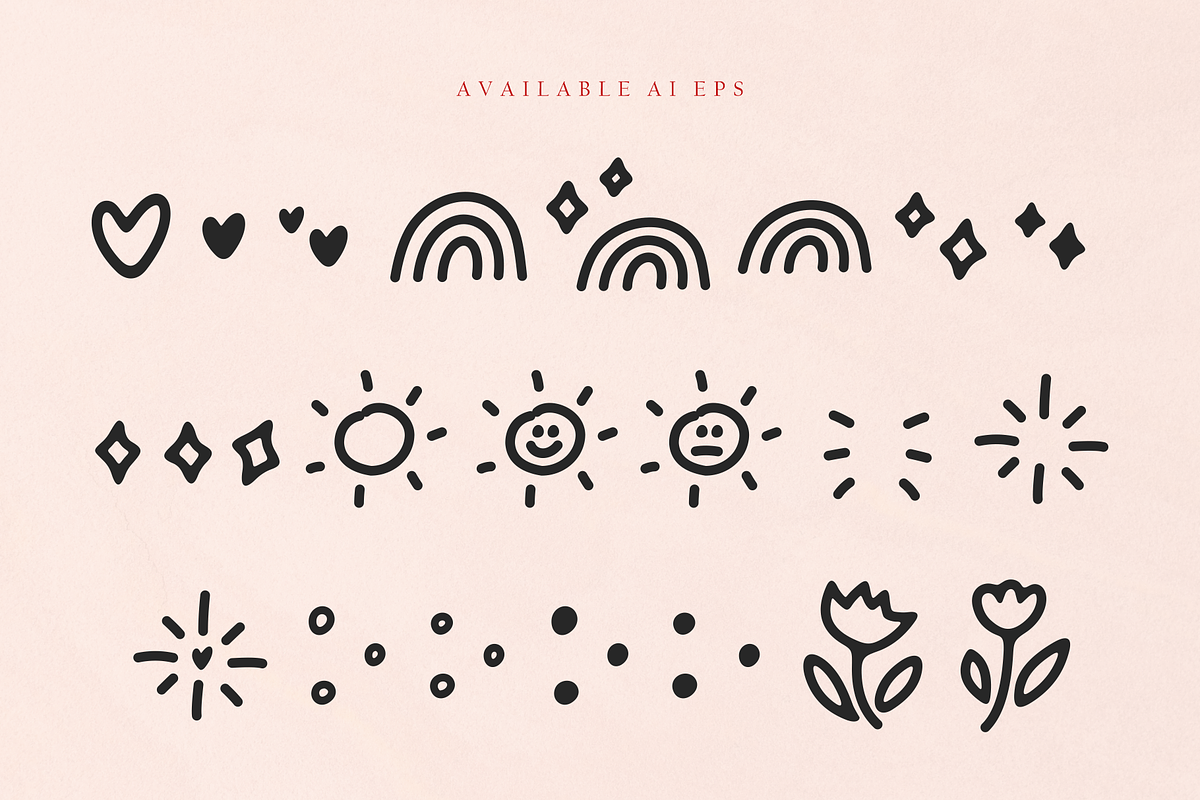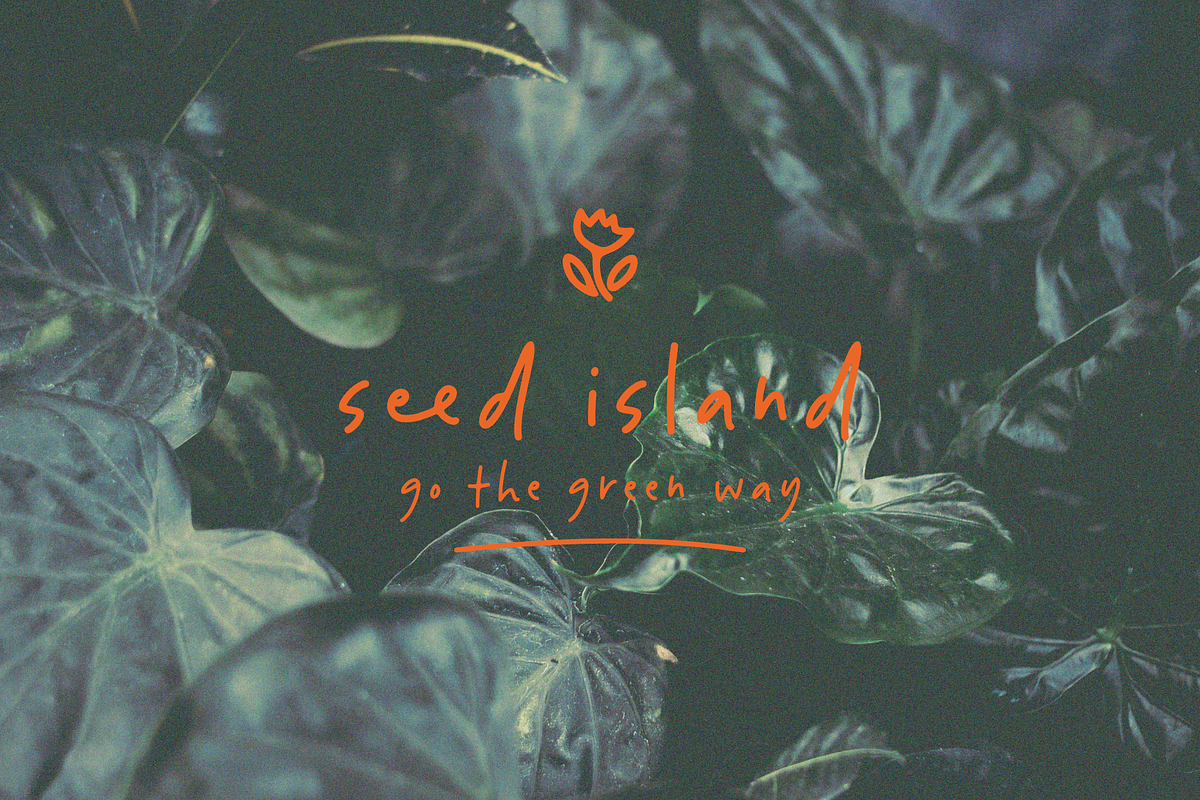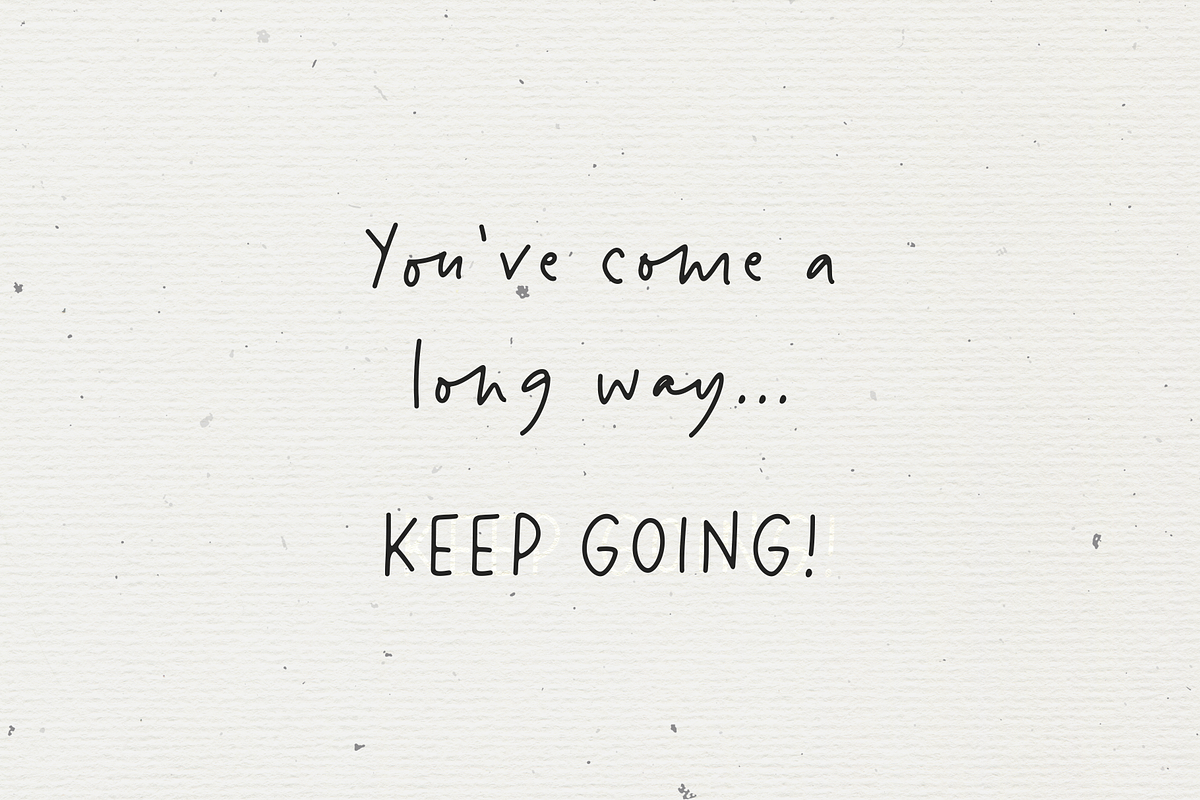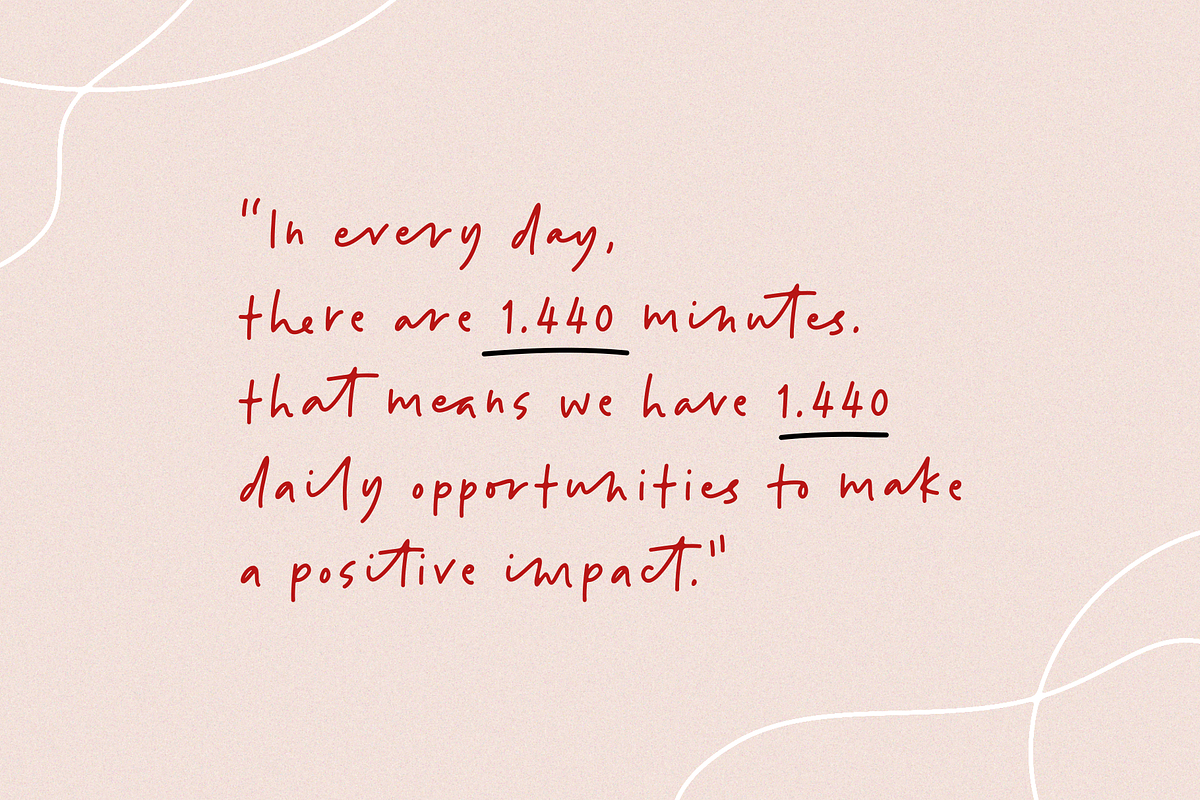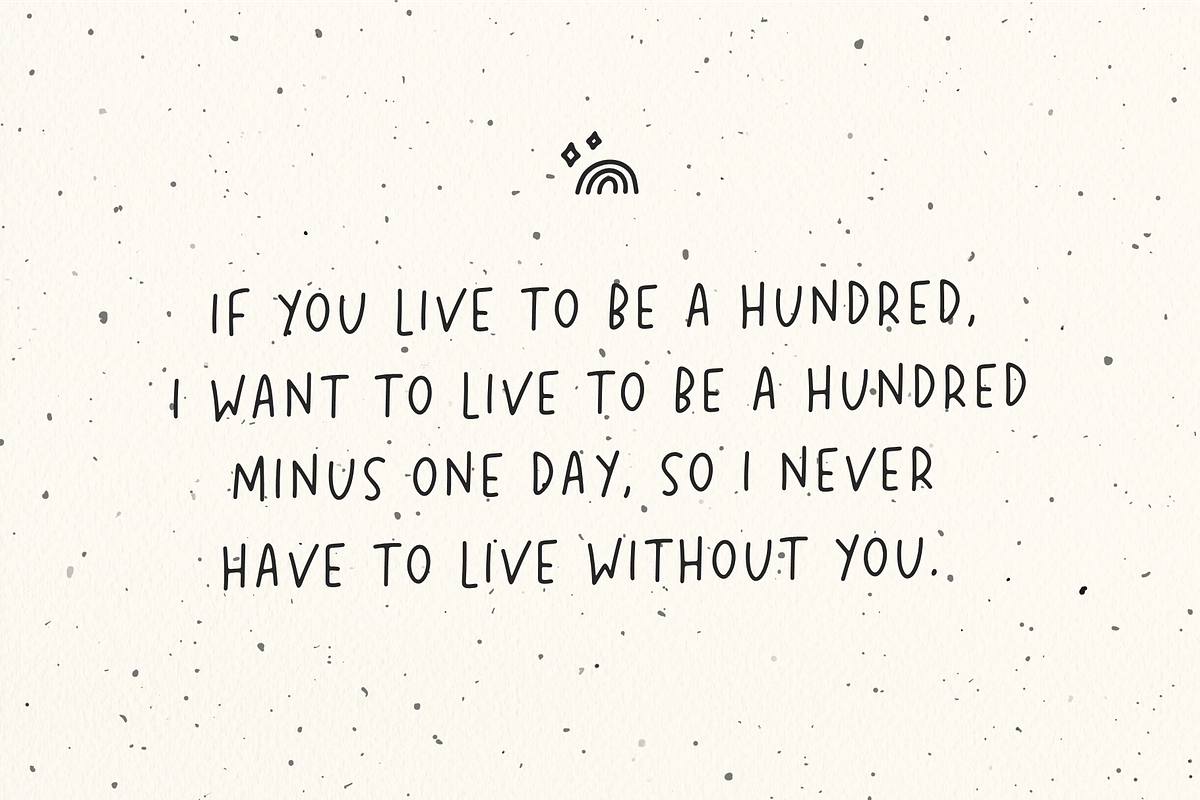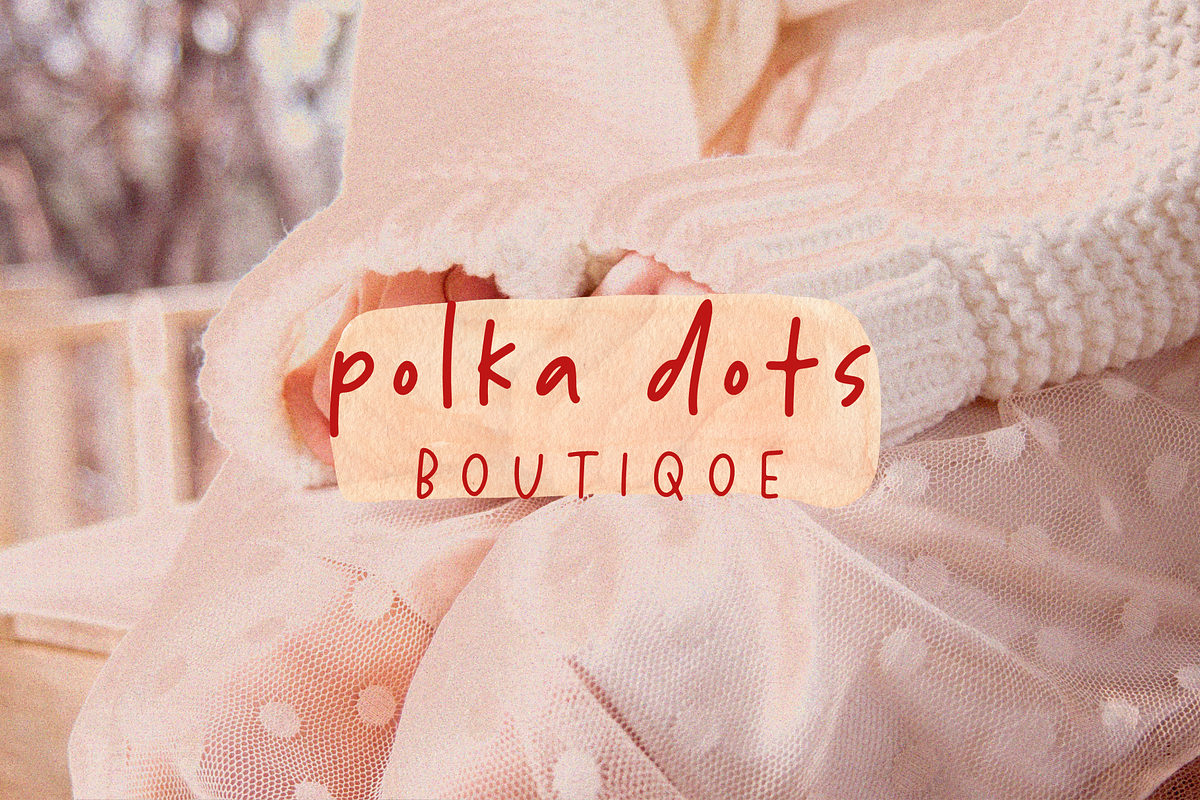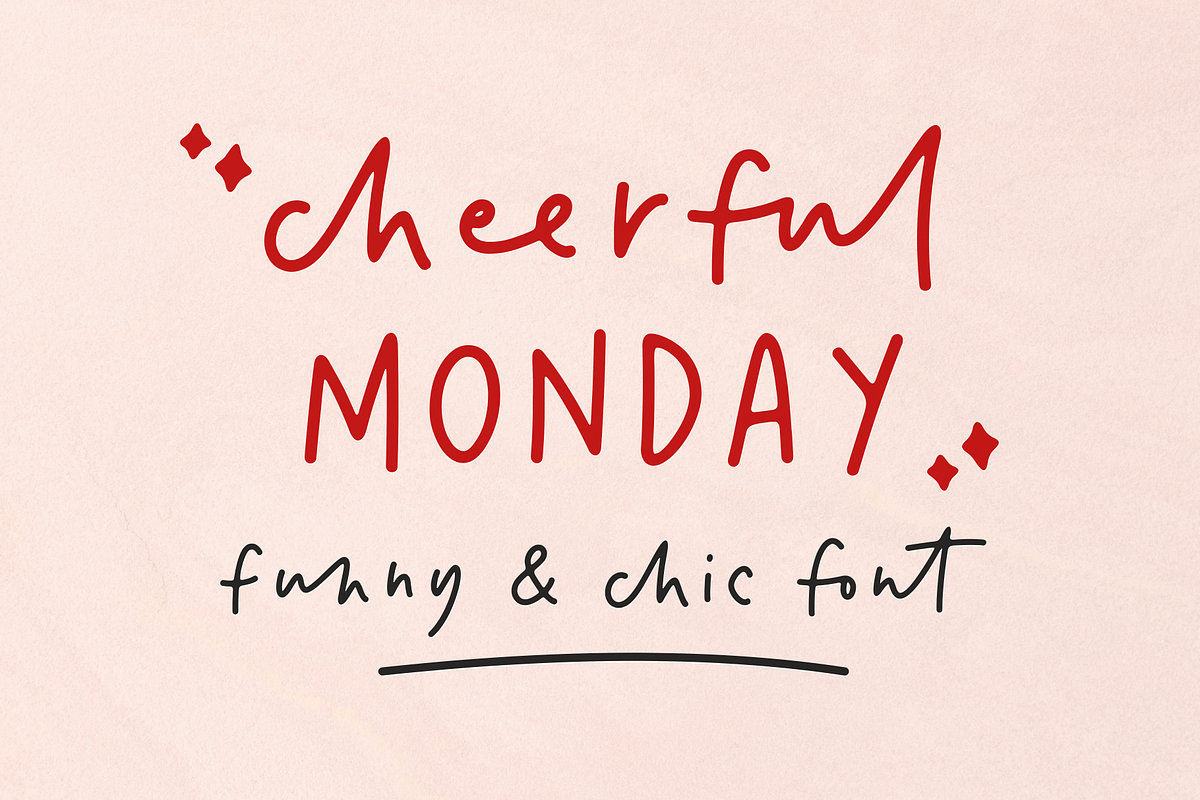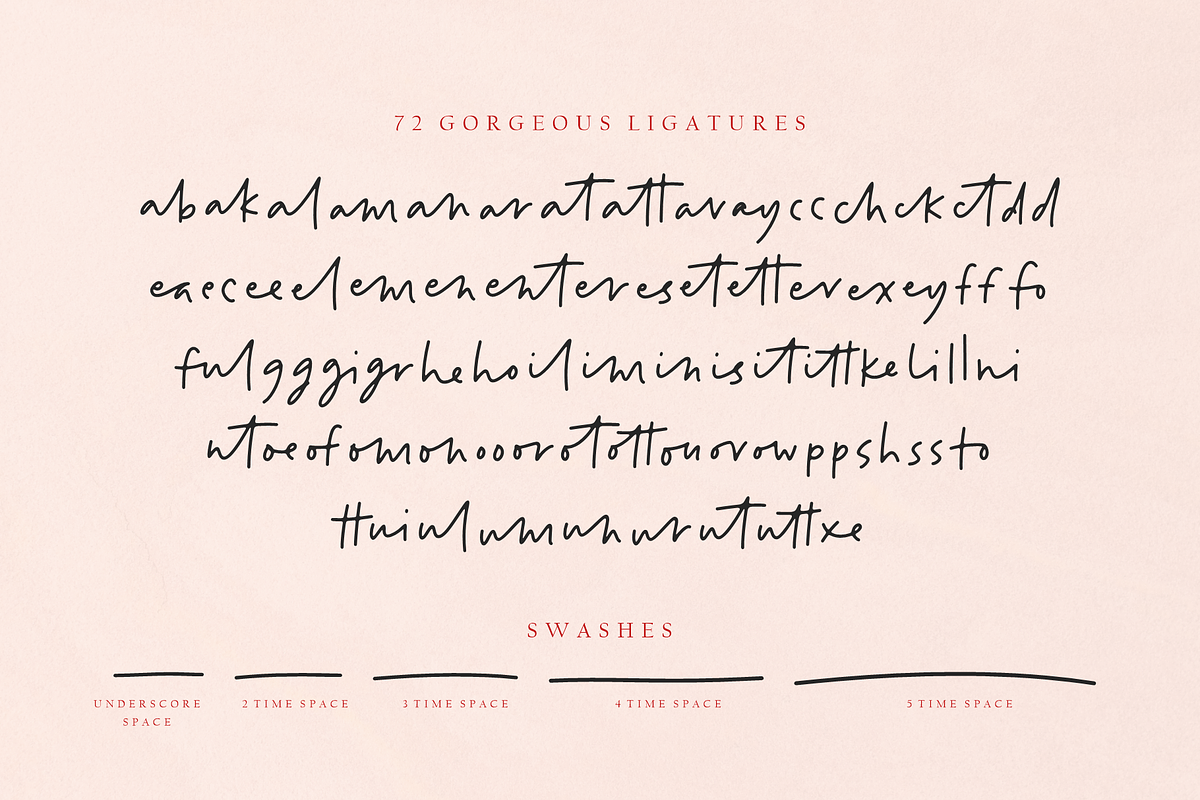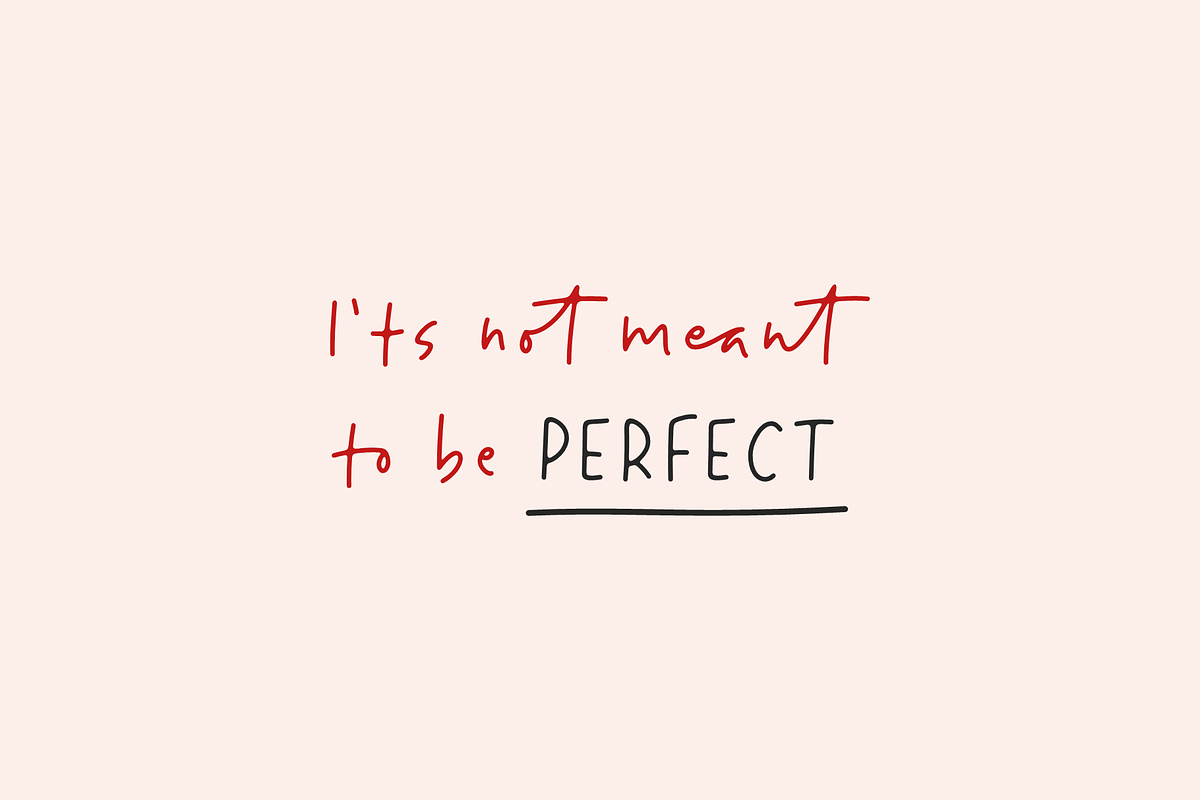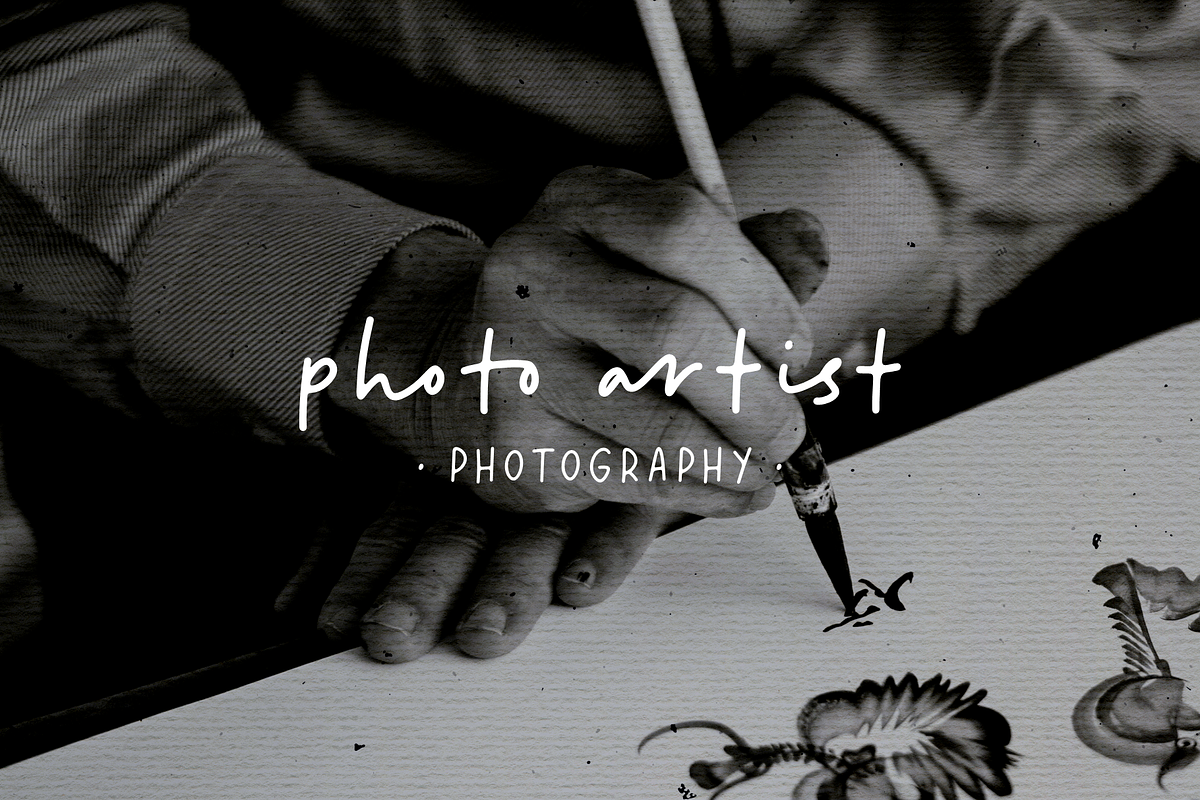
Cheerful Monday Handwritten Font
So glad we found each other! Enjoy Cheerful Monday, a handwritten font that has 2 variations (regular and bold), and to enhance your hand-lettering we provide 72 ligatures as your choice to summarize the words/sentences made. Also equipped with doodles as a bonus. This is perfect for quote designs, quaint logos, clever packaging, signboards, greeting cards, merchandise designs, trending Instagram photos and so much more!
Cheerful Monday features:
- A full set of upper & lowercase characters
- 72 Gorgeous ligatures
- Lowercase alternate (doodles)
- Multilingual symbols